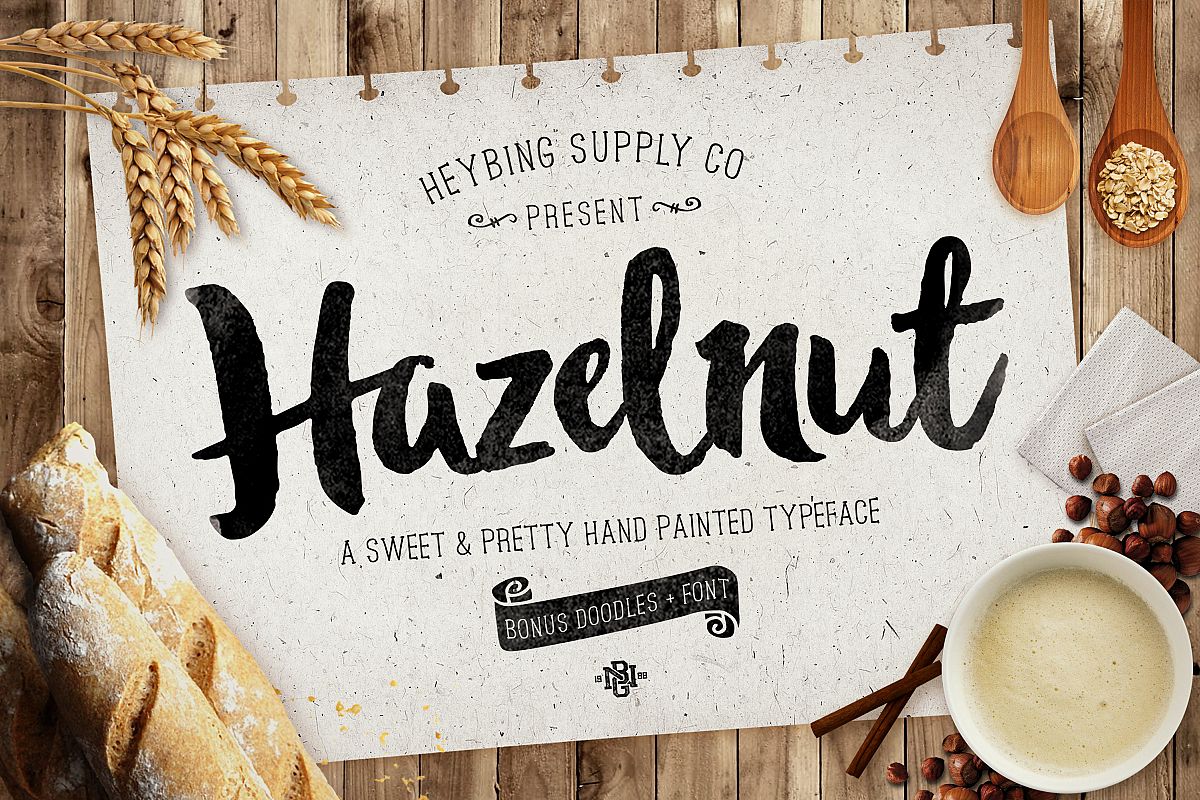
Hazelnut Typeface & Extras
Hazelnut Typeface
Hazelnut Typeface was created as a dual-purpose font, with hand-painted characters and an irregular baseline, a casual, arty and inky, newly brush-lettered font with doodles of free extras to bring it to life & catchy.
To create the beautiful combination, just mix the uppercase and lowercase then mix with the alternative glyphs. The hazelnut typeface includes a full set of capital and lowercase letters, as well as multi-lingual support, currency figures, numerals, punctuation & some extra glyphs.
Perfect for : using in ink or watercolour based designs or on its own as bold hand-brushed lettering.
Hazelnut Typeface & Extras